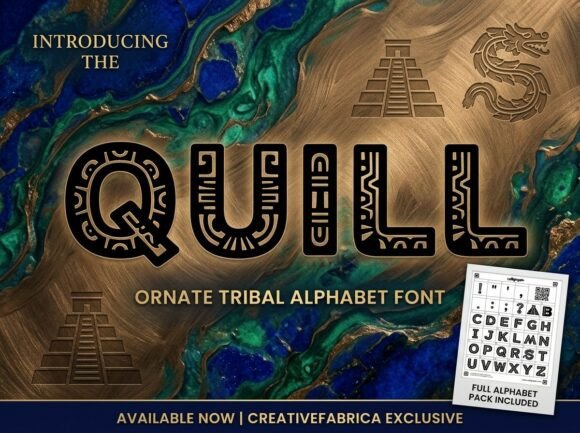
Introduction to Quill Font Font
Fonts play a crucial role in design, and the Quill Font font is a typeface that brings both character and versatility to any project. Whether you’re working on a branding project, a website, or a print design, the Quill Font font offers a unique style that can elevate your work.
Journey back to the dawn of grand civilizations with Quill, a spectacular Mayan ornate and tribal display font.
Inspired by ancient mesoamerican stone reliefs and traditional native textiles, this high-impact regular typeface features heavy, uniform structural walls carved with intricate historic architecture Each character envelope is packed with a complex matrix of internal geometric steps, symbolic chiseled glyph markers, and symmetrical linework that honors classical Aztec and Mayan tribal aesthetics.
Key Features of Quill Font Font
Why Choose Quill Font Font?
The Quill Font font is more than just a typeface – it’s a design tool that helps you communicate your message with style and clarity. Its unique character set and versatile design make it suitable for a wide range of applications, from elegant invitations to bold headlines.
With its carefully crafted letterforms and balanced proportions, the Quill Font font ensures readability and visual appeal across all mediums.
What makes Quill Font font special?
The Quill Font font stands out with its unique design, exceptional readability, and versatility across various design applications.